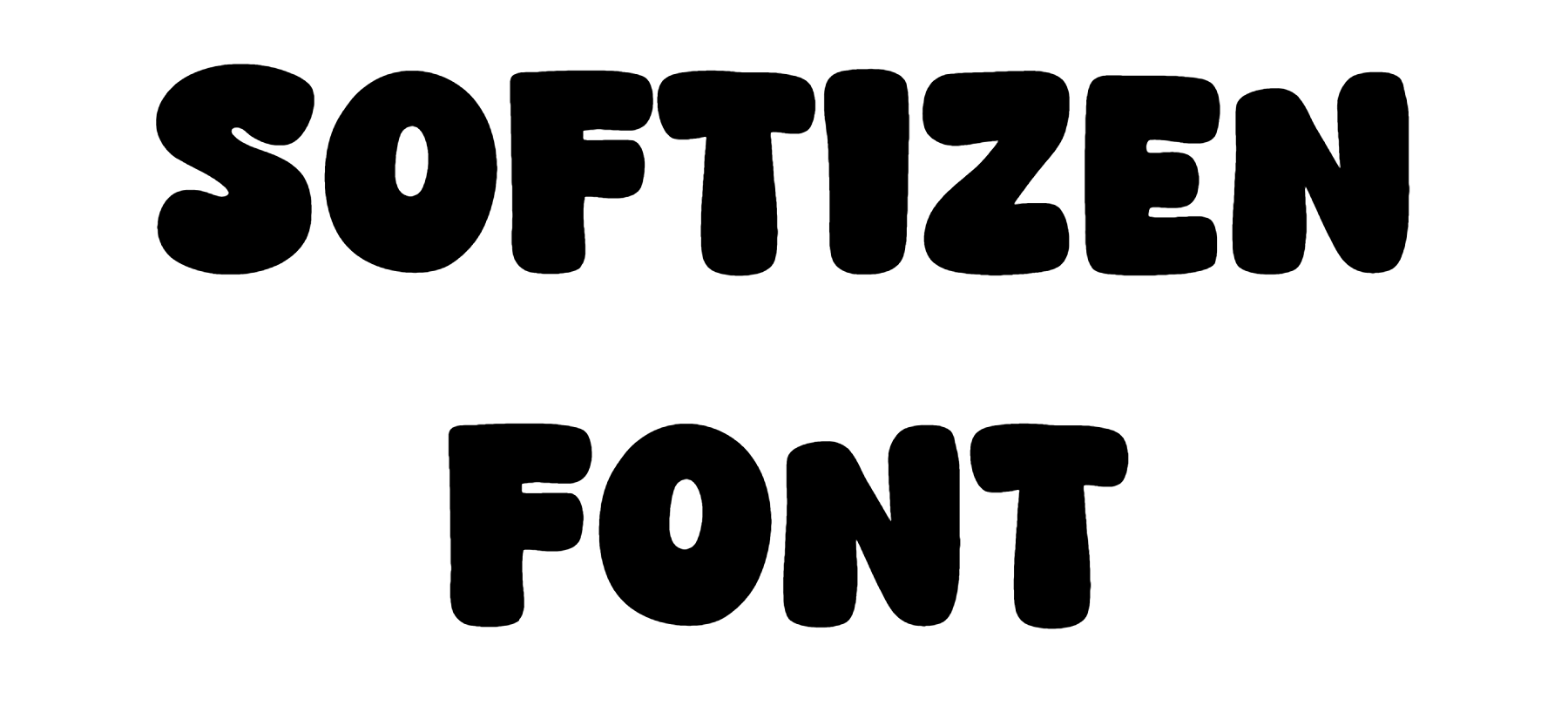
Softizen
Softizen is a cartoon font made by Khurasan. It has a cheerful, hand-drawn look that makes people smile before they even read the words. You can download it for free and test it with your own words in the preview above.
What You Can Type With Softizen
Softizen covers the full alphabet in upper and lowercase, plus all ten numbers, so you can set names, dates and prices without switching fonts. Everyday marks like &, !, ? and @ are there too. Thanks to its accented letters, it also works for Spanish, French, German, Portuguese and Italian, not just English.
Where Softizen Works Best
Softizen is a natural fit for kids' books, birthday invites and fun YouTube thumbnails. Cartoon fonts are great for short, fun lines. If you place it over a busy photo, add a thick outline or a drop shadow so it stays readable.
Does Softizen support accented letters?
Yes. Softizen includes the accented letters needed for Spanish, French, German, Portuguese and Italian, so it works for more than just English.